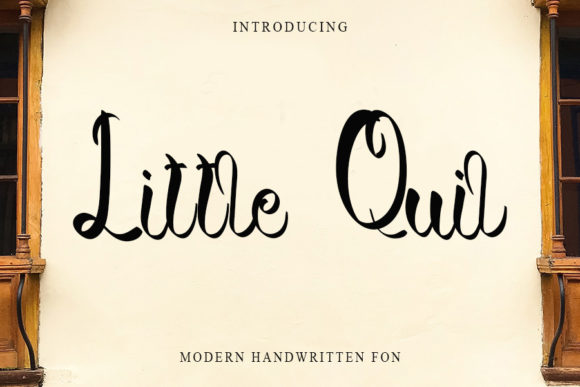
Little Quil Font
Unveil the Essence of Elegance with Little Quil Font: A Stroke of Enchantment for Your Design Endeavors
In the realm of typography, where letters dance and words come alive, there exists a font of unparalleled charm, a symphony of flowing lines and graceful curves – Little Quil Font. This enchanting script, meticulously crafted by Intana Type, epitomizes beauty, delicacy, and timeless elegance.
Little Quil Font is not merely a collection of characters; it's an expression of artistry, a testament to the power of creativity. Each letter, meticulously designed with a touch of whimsy, resembles a delicate brushstroke, evoking a sense of intimacy and warmth. Its unique charm lies in its ability to transform ordinary words into captivating works of art.
With Little Quil Font, you'll embark on a typographic journey filled with endless possibilities. Its inherent versatility makes it an ideal choice for a multitude of design projects, from elegant wedding invitations and heartfelt greeting cards to eye-catching logos and captivating social media posts.
Step into the world of Little Quil Font and discover a treasure trove of creative opportunities. Its delicate strokes and playful personality add a touch of magic to any design, captivating the hearts of your audience. Unleash your imagination and let the letters dance across your canvas, telling stories that resonate and leave an indelible mark.
Whether you're a seasoned designer seeking a touch of sophistication or a creative enthusiast yearning for a unique expression, Little Quil Font awaits you. Embrace its allure and let your designs blossom with grace and charm.
Key Features of Little Quil Font:
- Enchanting Script Font: Little Quil Font mesmerizes with its graceful curves and fluid lines, captivating your audience with its timeless elegance.
- Versatile Design Companion: With its inherent adaptability, Little Quil Font effortlessly complements a wide range of design projects, from personal stationery to professional branding.
- Perfect for Logos and Branding: Create distinctive logos and branding materials that exude elegance and charm, leaving a lasting impression on your customers.
- Ideal for Invitations and Cards: Add a touch of romance and personalization to wedding invitations, greeting cards, and other special occasions with Little Quil Font's delicate touch.
- Social Media Star: Elevate your social media presence with Little Quil Font's captivating charm, capturing the attention of your followers and leaving a lasting impression.